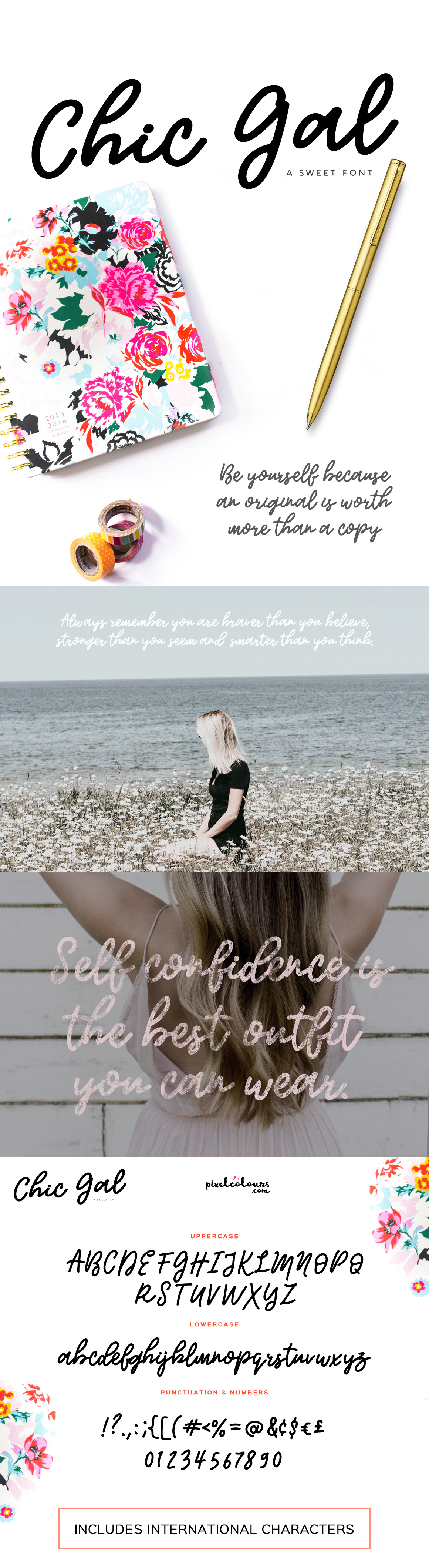
A clean feminine script font with and imperfect touch and a bouncy baseline that looks really girly!
GREAT FOR CUTTING
It is not bold but it is not thin, it is not textured! It's just perfect for cutting and doing craft projects!
- Uppercase and lowercase characters.
- Numbers and punctuation.
- International characters